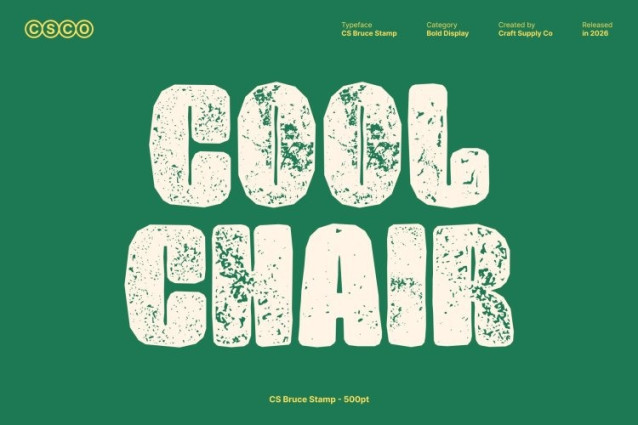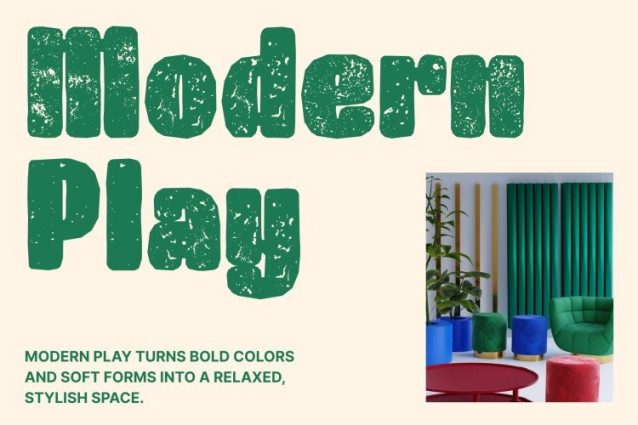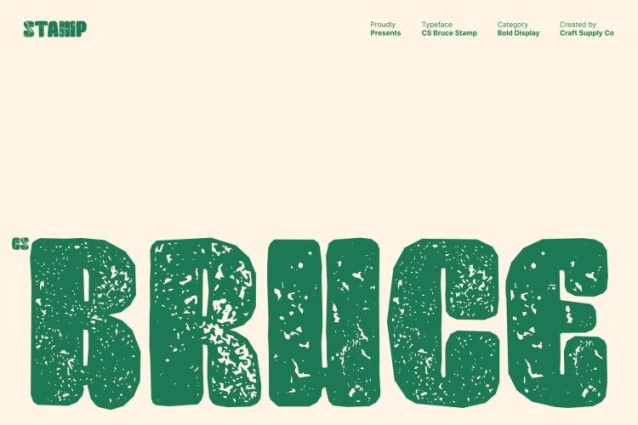
CS Bruce Stamp Font
CS Bruce Stamp Font – This is a bold display sans serif font crafted with a clean and contemporary aesthetic, designed to create a strong visual impact at first glance. Its thick, well-defined strokes and confident letterforms radiate strength, clarity, and professionalism. Enhanced with a stamped texture, the font gains a rugged, handcrafted character that adds depth while maintaining its modern structure.
Designed to Command Attention
Every character in this font is built to appear robust and authoritative. The bold weight ensures strong visibility, making it ideal for posters, headlines, and impactful branding. The stamped texture introduces a subtle distressed detail, giving the typeface a raw yet stylish edge that enhances its commanding presence.
Versatile and Assertive
Whether applied in editorial layouts, advertising campaigns, packaging, or corporate identity design, this font offers a dynamic and memorable look. Its bold silhouette combined with textured detailing creates a balance between modern clarity and expressive character.
Bold Typography for Modern Creatives
This is more than just a bold display font it’s a statement typeface that brings power, personality, and visual confidence to any design. Perfect for creatives who want typography that feels strong, modern, and visually distinctive, it elevates messaging with a bold and unmistakable presence.